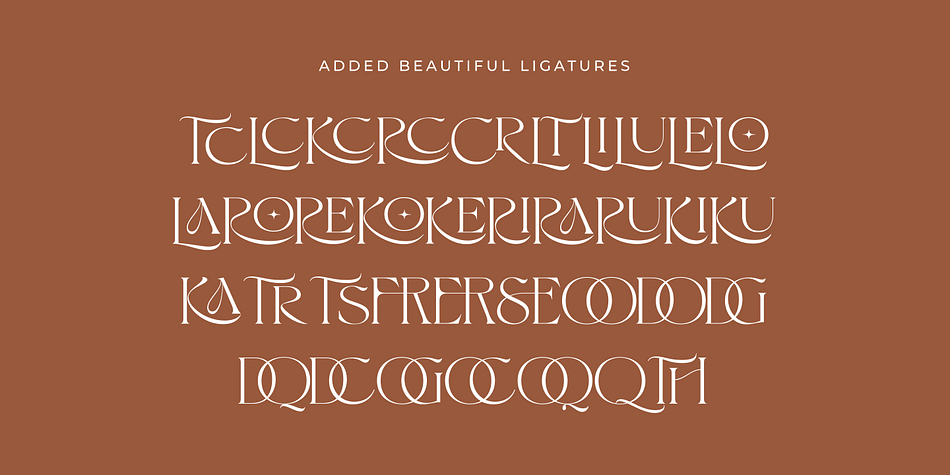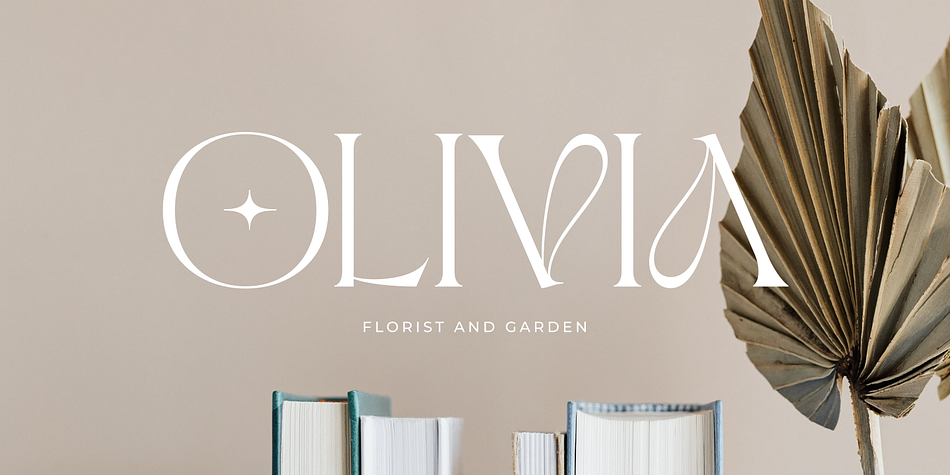
Selaris
Selaris is an art nouveau and display font family published by Zeenesia Studio.
Selaris is a beautiful and feminine serif font created with a romantic and lovely look. Whether you’re using it for crafts, digital design, presentations, or making greeting cards, this font has the potential to become your favorite go-to font, no matter the occasion!